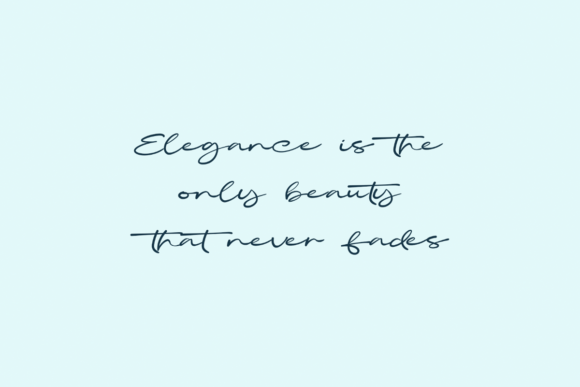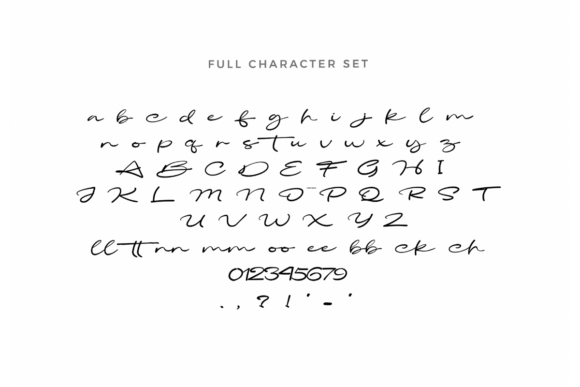
Introduction to Ornation Font
As a designer, there’s nothing quite like the thrill of discovering a new font that perfectly captures the essence of your creative vision. It’s the moment when all the pieces come together – the perfect blend of style, personality, and functionality. For me, that moment came when I stumbled upon the enchanting Ornation Font, an exquisitely crafted handwritten font that has since become a staple in my design toolkit.
With its delicate intricacies and lovely cursive strokes, Ornation Font is the perfect addition to any designer’s arsenal. Whether you’re working on a high-quality branding project or a creative endeavor, this beautiful script font is sure to add an extra layer of elegance and personality to your design. And the best part? It’s available for free download, making it a valuable resource for designers of all levels.
From blog headers to social media graphics, Ornation Font is the perfect design resource for adding a touch of whimsy and charm to your transparent background designs.
Key Features of Ornation Font
- High-quality, professional design ideal for creative projects, with a wide range of applications including logos, branding, and digital art.
- Includes a variety of font styles and weights, providing users with a range of options to suit their design needs.
- Unique characteristics include its modern and elegant aesthetic, making it an ideal choice for designers seeking a sophisticated look.
Honest Review: Ornation Font
As a designer, I’m always on the lookout for unique and high-quality fonts to elevate my creative projects. Recently, I stumbled upon the Ornation Font, which I’m excited to share my thoughts on.
- High-quality design: The Ornation Font boasts a beautiful, intricate design that’s perfect for adding a touch of elegance to any project.
- Limited character set: Unfortunately, the Ornation Font has a limited character set, which may not be suitable for complex text-based projects.
- Not ideal for small text: Due to its intricate design, the Ornation Font may not be the best choice for small text sizes, as it can become difficult to read.
Overall, the Ornation Font is a great addition to any designer’s toolkit. While it has some limitations, its unique design and free availability make it a valuable resource for creative projects. I’d definitely recommend giving it a try, especially if you’re looking for a high-quality font with a transparent background.
Ornation Font
The Ornation Font is a versatile, high-quality design resource ideal for creative projects. Its unique style and transparent background make it a perfect addition to any design. With a free download available, you can easily incorporate it into your next project.
Tips for Getting the Most Out of Ornation Font
To get the most out of the Ornation Font, try experimenting with different font sizes, colors, and combinations to create unique and eye-catching designs.
The Ornation Font is perfect for:
- Brochure design
- Infographic design